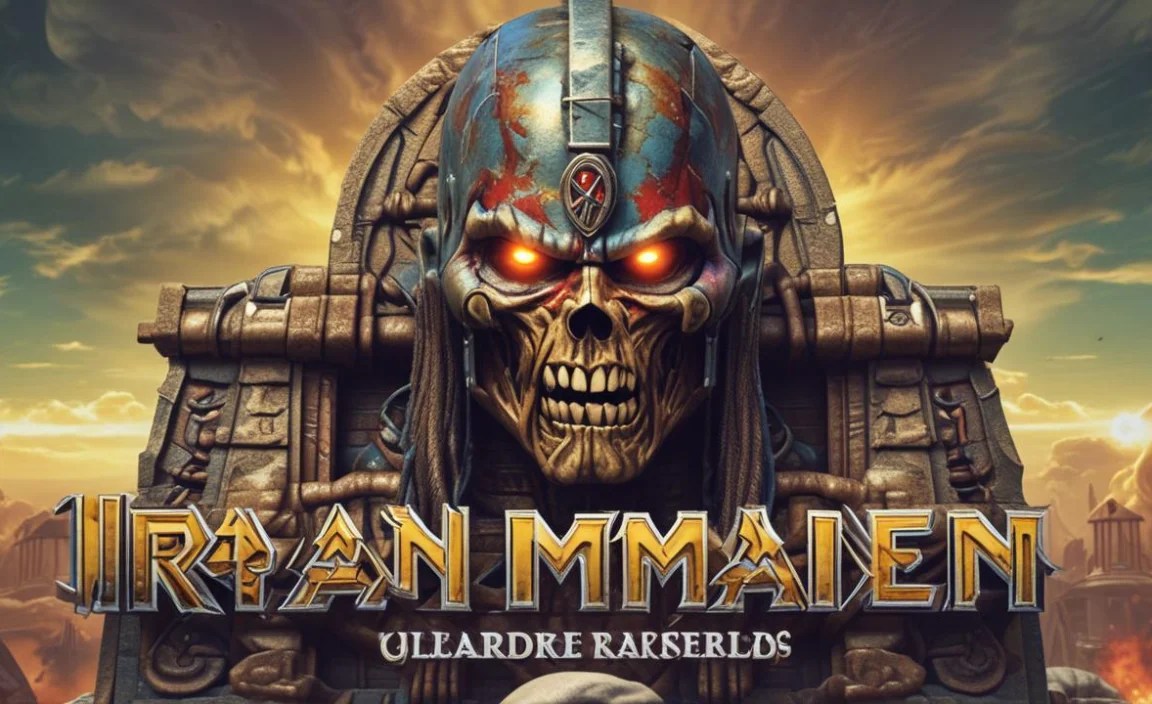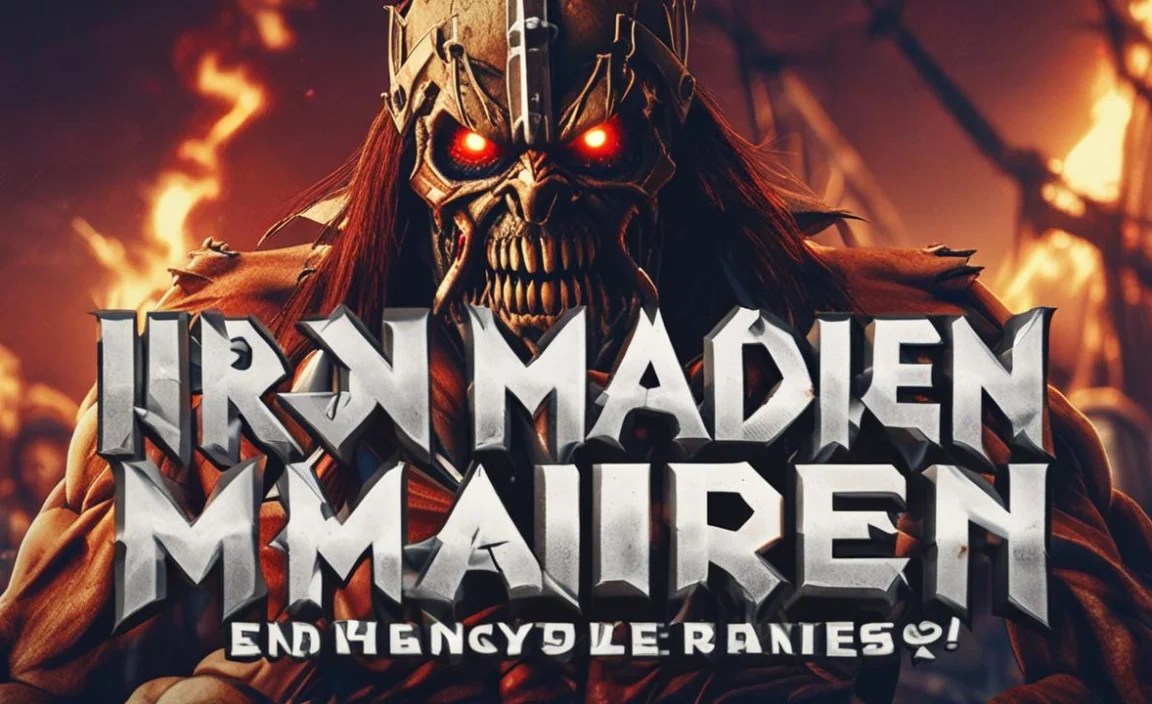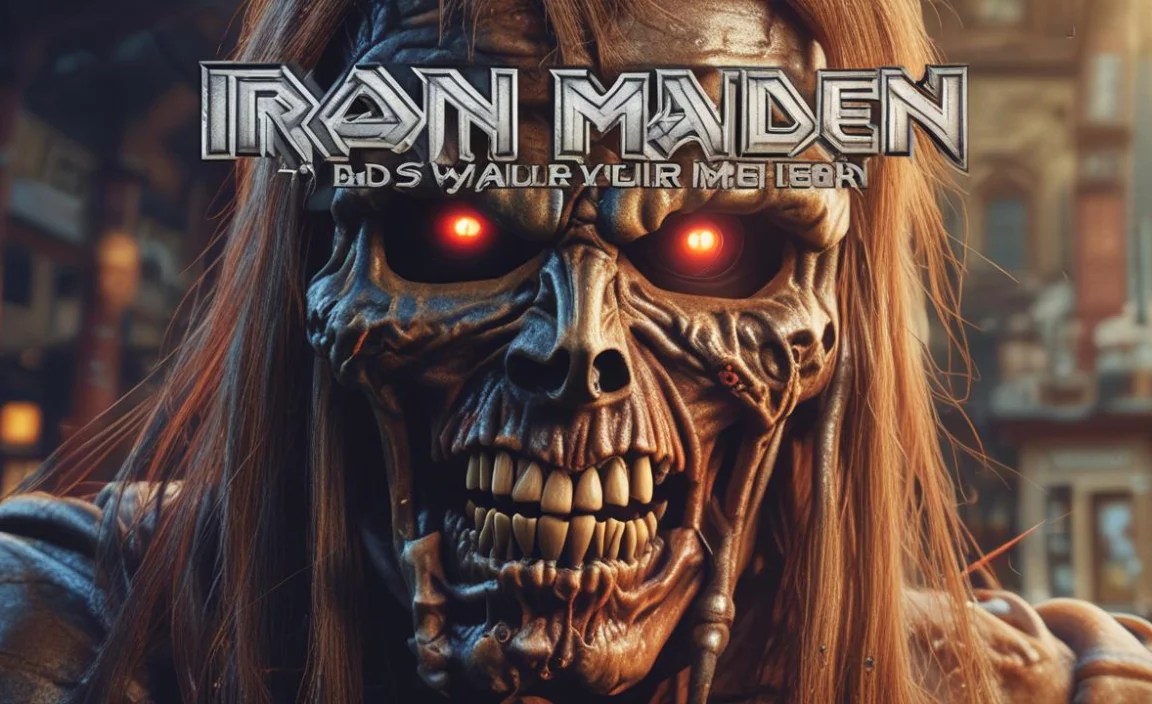
Iron Maiden Font is a bold, sharp, and gothic-inspired typeface that reflects the iconic lettering of the legendary heavy metal band Iron Maiden.
Designed to mimic the angular and architectural style first crafted by Steve Harris, the band’s founder, the font has become synonymous with the heavy metal aesthetic. While there is no official version available, Timour Jgenti created a font resembling Iron Maiden’s lettering. The font is free for both personal and commercial use.
The Iron Maiden Font Family Includes
The sharp, pointed characters and gothic elements define the design of the Iron Maiden Font, making it instantly recognizable. The font family includes multiple variations of the iconic heavy metal style, each capturing the essence of the band’s logotype.
- Iron Maiden Regular
Key Uses Of The Iron Maiden Font
The Iron Maiden Font’s strong, angular design makes it a perfect fit for projects with a heavy metal or gothic theme. You can use its distinctive look across a wide range of creative and commercial applications where a bold, rebellious aesthetic suits the design.
- Band and Music Logos
- Album Covers
- Merchandise and Apparel
- Event Posters and Flyers
- Concert Tickets
- Heavy Metal-themed Social Media Graphics
- Video Game Titles
- Fan Art
- Tattoo Designs
The Legacy of Iron Maiden Font: Bringing Heavy Metal to Life
The Iron Maiden Font captures the raw energy and rebellious spirit of heavy metal music. Its sharp, angular design makes it ideal for expressing boldness and rebellion in every design. Whether you are creating merchandise or fan art, it ensures that your project embodies the power of the legendary band.
Tips for Using the Iron Maiden Font in Your Designs
- Contrast with Minimalist Fonts: Pair the Iron Maiden Font with minimalist or modern sans-serif fonts like Roboto or Montserrat to create a striking contrast that highlights its boldness.
- Use with Dark, Metallic Backgrounds: The font works exceptionally well with dark or metallic backgrounds, which further emphasize its gothic nature.
- Perfect for Music-Related Projects: The Iron Maiden Font excels in projects related to music, especially in the rock and metal genres. Use it in album covers, event posters, and band logos to bring the rebellious energy to life.
Iron Maiden Font in Popular Culture
As a fan-favorite and symbol of the iconic heavy metal band, the Iron Maiden Font has become part of pop culture. Its use extends beyond design into video games, movies, and even tattoos, where fans use the font to pay tribute to their love of Iron Maiden.
Iron Maiden Font embodies the raw energy of heavy metal music with its sharp, angular design. While it may not replicate a specific historical typeface, it effectively captures the gothic and rebellious feel that the band has made famous. Pair Iron Maiden Font with sleek, modern fonts or textured backgrounds to create dynamic contrast and make your design stand out.
Q1: Is Iron Maiden Font Suitable For All Types Of Design Projects?
The Iron Maiden Font suits projects with a gothic, rebellious, or heavy metal-inspired aesthetic best. Its sharp and dramatic style is perfect for logos, album covers, and posters, but may not be ideal for body text or formal documents.
Q2: What Makes Iron Maiden Font Different From Other Gothic Fonts?
Iron Maiden Font stands out with its distinctive heavy metal style, inspired by the band’s logotype. Unlike other gothic fonts, it combines a powerful, angular look with elements of architectural design, giving it a unique and edgy appeal.
Q3: What Are The Popular Uses Of Iron Maiden Font?
Iron Maiden Font is popular for heavy metal-themed merchandise, music logos, event posters, and album covers. It is also used in fan art, tattoos, and social media graphics related to rock and metal music.
Q4: What Are The Design Principles Behind The Iron Maiden Font?
The design principles behind Iron Maiden Font focus on a bold, angular look that reflects the energy and aggression of heavy metal music. The font’s sharp edges and gothic elements make it perfect for conveying power and intensity.
Q5: What Color Palette Is Typically Used With Iron Maiden Font?
Iron Maiden Font is often used with dark, metallic, and vibrant colors that complement its heavy metal style. Designers frequently pair it with black, red, silver, and white to enhance its bold and rebellious aesthetic.